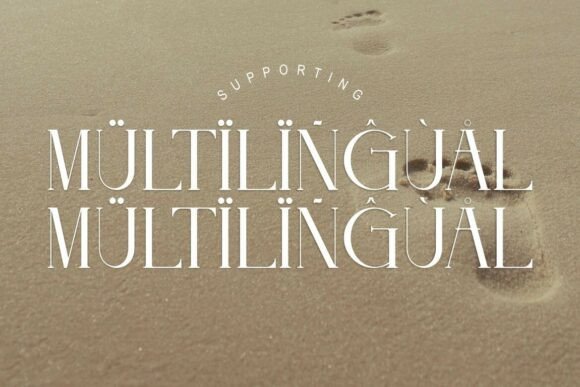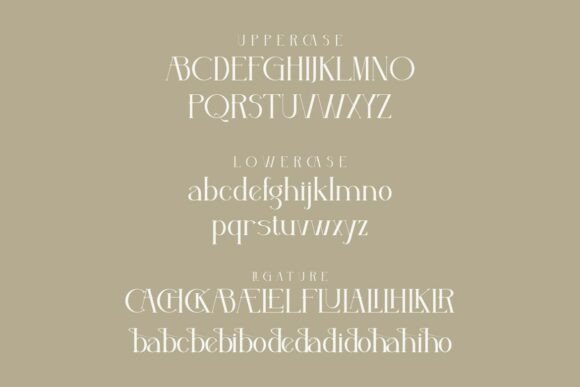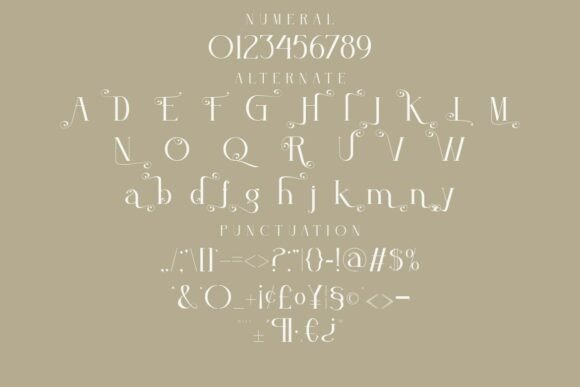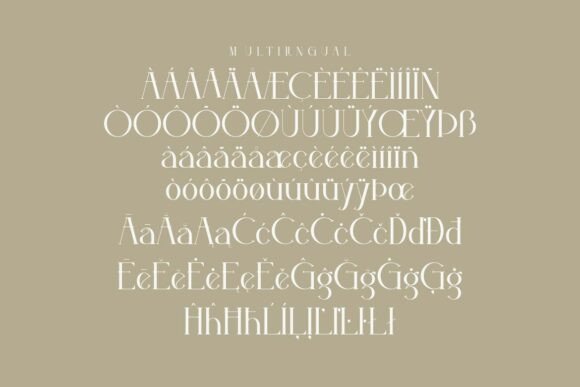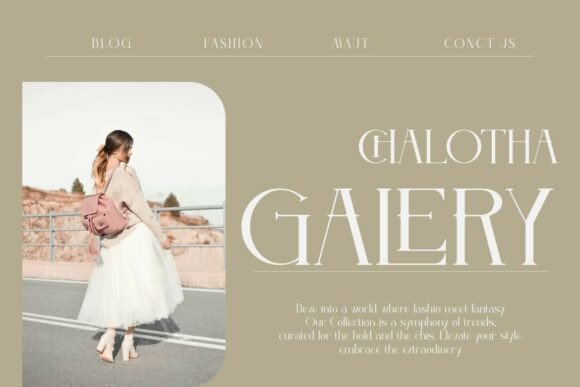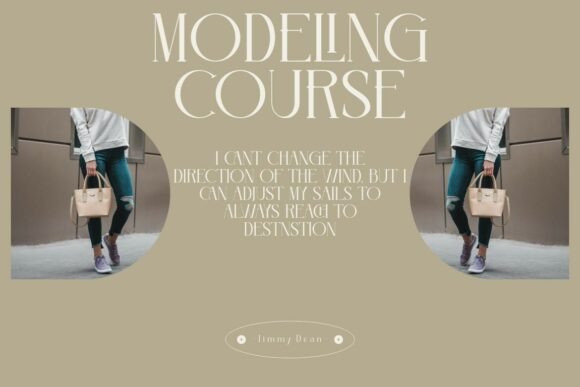
Discover the Ethereal Beauty of Chalotha Font: A Harmonious Blend of Serenity and Sophistication
In the world of typography, few fonts manage to capture the essence of serenity and sophistication as effortlessly as the Chalotha font. This new serif display typeface is a masterful blend of geometric precision and soft, organic grace, making it a perfect choice for designers seeking to elevate their projects with a touch of elegance. Inspired by the tranquil beauty of a horizon at dawn, Chalotha brings a sense of calm and refinement to any design, making it an ideal choice for high-end fashion, spa branding, editorial layouts, and more.
The Distinctive Characteristics of Chalotha Font
Chalotha is defined by its elegant, elongated letterforms and distinctive circular flourishes that add an air of artistic mystery to every word. The typeface boasts a range of unique decorative elements, including the “eye” swash within the letter ‘O’ and the sweeping curves of the ‘C’ and ‘H’, which transform simple headlines into bespoke works of art. These subtle yet sophisticated details make Chalotha a design statement that commands attention through its refined subtlety.
One of the standout features of the Chalotha typeface is its versatility. Whether you’re designing for high-end fashion, tranquil spa branding, or sophisticated editorial layouts, this typeface provides a serene and upscale aesthetic that elevates any project. The combination of geometric precision and soft, organic curves makes Chalotha a chameleon of a font, capable of adapting to a wide range of design styles and applications.
Pairing Chalotha with Minimalist Designs
Imagine pairing the Chalotha typeface with minimalist designs for a striking contrast of elegance and simplicity. The clean lines and subtle curves of Chalotha complement minimalist aesthetics perfectly, creating a harmonious balance that adds depth and sophistication to any design. This pairing is particularly effective in editorial layouts, where the goal is to convey complex information in a clear and refined manner.
Crafting a Design Statement with Chalotha
The Chalotha font is more than just a collection of characters; it’s a design statement crafted for those who seek to balance geometric precision with soft, organic grace. By incorporating Chalotha into your design projects, you’re making a statement about your attention to detail and commitment to elegance. Whether you’re a seasoned designer or a crafty DIY enthusiast, Chalotha provides the tools you need to create stunning, high-end designs that command attention.
The Artistic Inspiration Behind Chalotha
The Chalotha typeface draws inspiration from the tranquil beauty of a horizon at dawn, capturing the ethereal quality of this moment in a harmonious blend of serenity and sophistication. The result is a font that feels both timeless and contemporary, with a unique character that sets it apart from more traditional typefaces. This artistic inspiration is evident in the elegant, elongated letterforms and distinctive circular flourishes that define the Chalotha font.
Elevate Your Designs with Chalotha
In conclusion, the Chalotha font is a game-changer for designers and crafters seeking to elevate their projects with a touch of elegance and sophistication. With its unique blend of geometric precision and soft, organic curves, Chalotha provides a serene and upscale aesthetic that’s perfect for a wide range of design applications. Whether you’re designing for high-end fashion, spa branding, editorial layouts, or simply seeking to add a touch of refinement to your DIY projects, Chalotha is the perfect choice.
Key Features of Chalotha Font
- Elegant, elongated letterforms for a sophisticated look
- Distinctive circular flourishes for added artistic mystery
- Unique decorative elements, including the “eye” swash within the letter ‘O’
- Sweeping curves of the ‘C’ and ‘H’ for a bespoke touch
- Versatile and adaptable to a wide range of design styles and applications
- Perfect for high-end fashion, tranquil spa branding, and sophisticated editorial layouts
Experience the ethereal beauty of Chalotha font and discover a new world of design possibilities. Whether you’re a seasoned designer or a crafty DIY enthusiast, Chalotha is the perfect choice for those seeking to balance geometric precision with soft, organic grace.